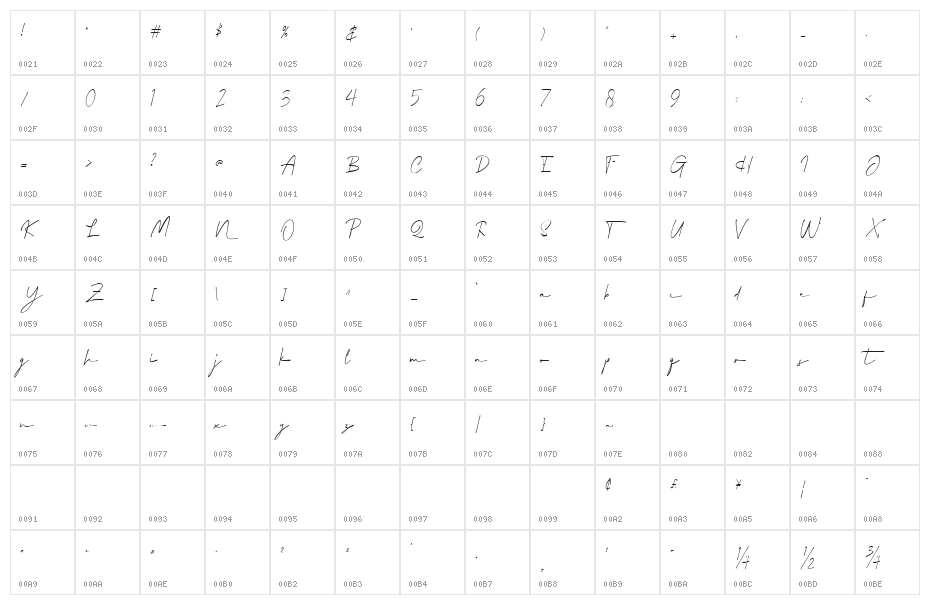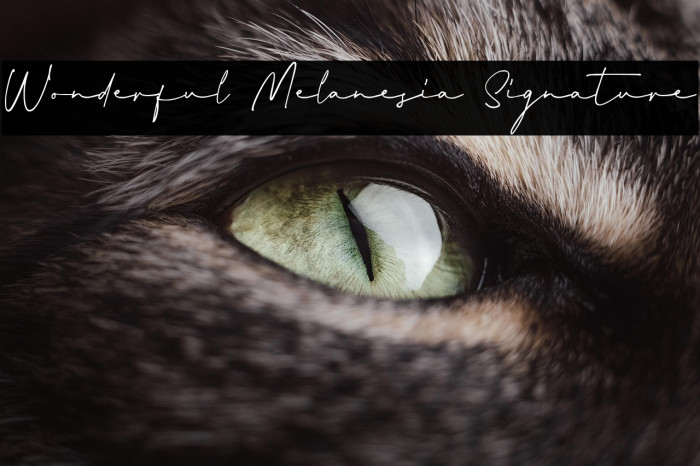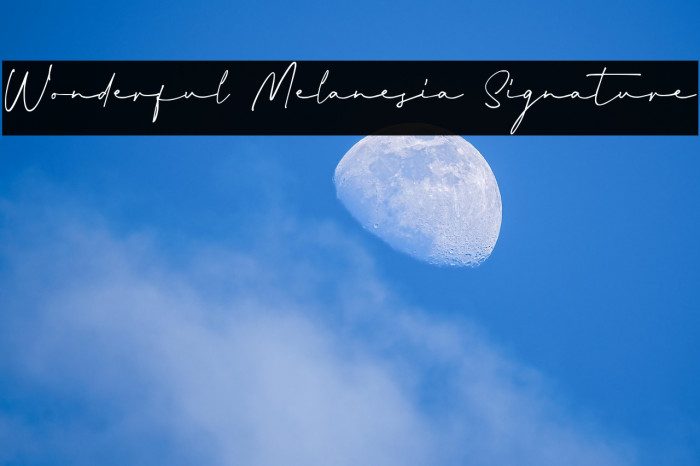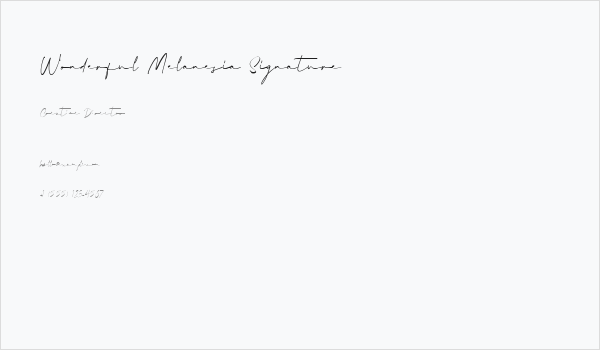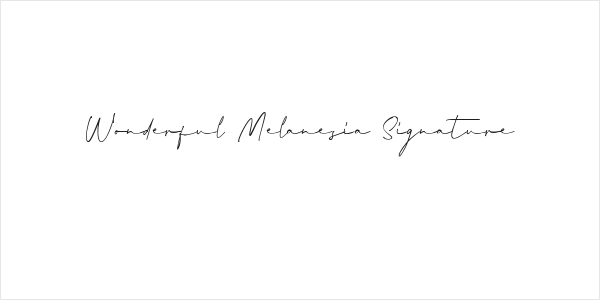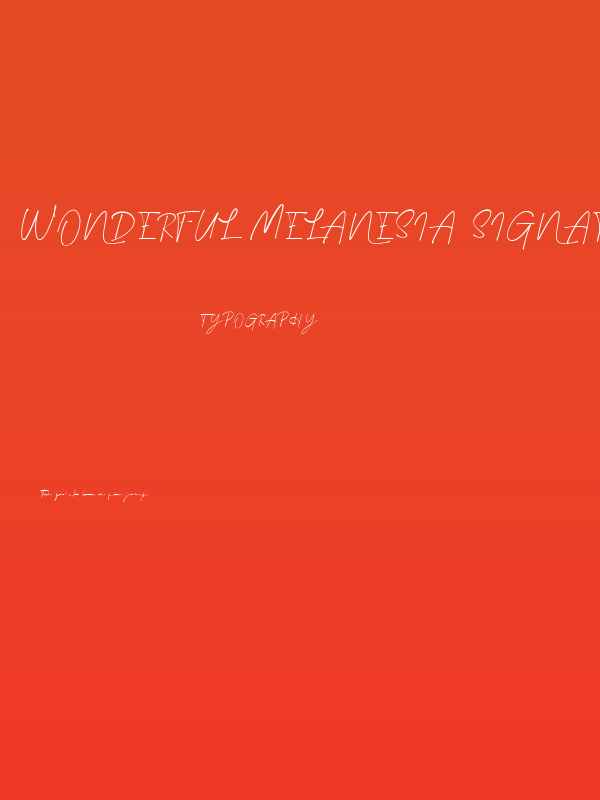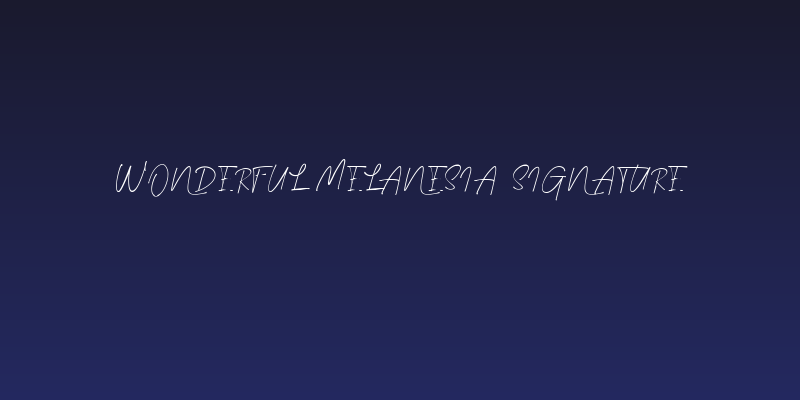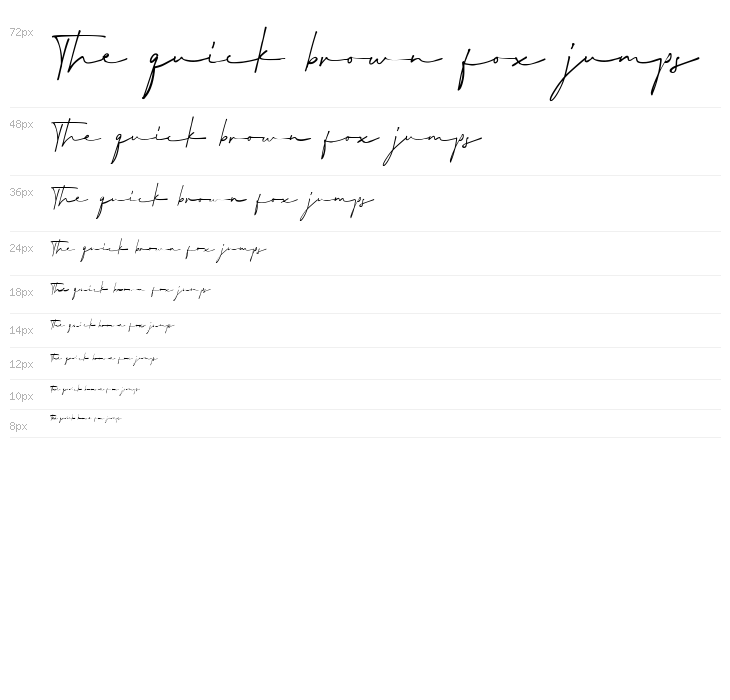
Wonderful Melanesia Signature Font
Wonderful Melanesia Signature Description
This font exudes a casual yet elegant handwritten style, characterized by its fluid and connected letterforms. The uppercase letters are tall and slightly slanted, giving a sense of movement and grace. The lowercase letters maintain a consistent flow, enhancing the script-like appearance. Numbers and special characters are seamlessly integrated, maintaining the overall aesthetic. The thin strokes and delicate curves contribute to a sophisticated and personal touch, making it ideal for projects that require a personal or artistic flair.
| Proposed Projects | Ideal for wedding invitations, personal branding, greeting cards, and artistic projects. |